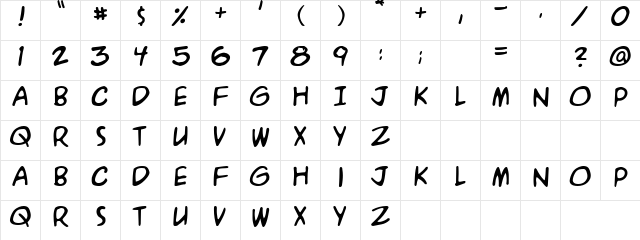
Child Play Regular
Design Context for Child Play Typeface
Child Play trades formality for fun, with bouncy, characterful letterforms that bring warmth and energy to any project.
Font Pairing: Pairs well with a rounded or humanist sans for body copy, maintaining the friendly tone without relying on Child Play to carry extended reading.
Pro Tip: Avoid using Child Play for long passages of text — it works best for headlines, labels, and short calls to action.